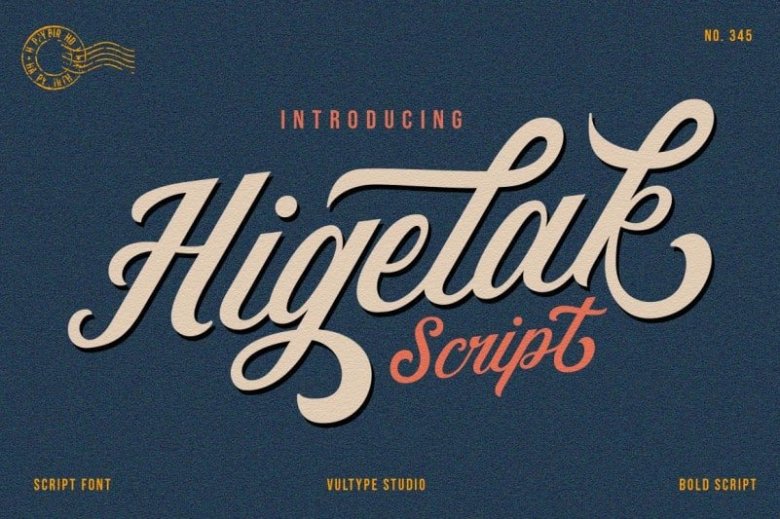
Higelak Font
Higelak Script Font inspired by old style ephemera letterhead print, beer label, certificate, billhead, lithographic design and sign store from the late 1800’s and early 1900’s.
Higelak Script Font allowing you to create hand lettering is an instant and a super handy set of bonus Swash. Ideal for logos, handwritten quotes, product packaging, header, poster, merchandise, social media & greeting cards.